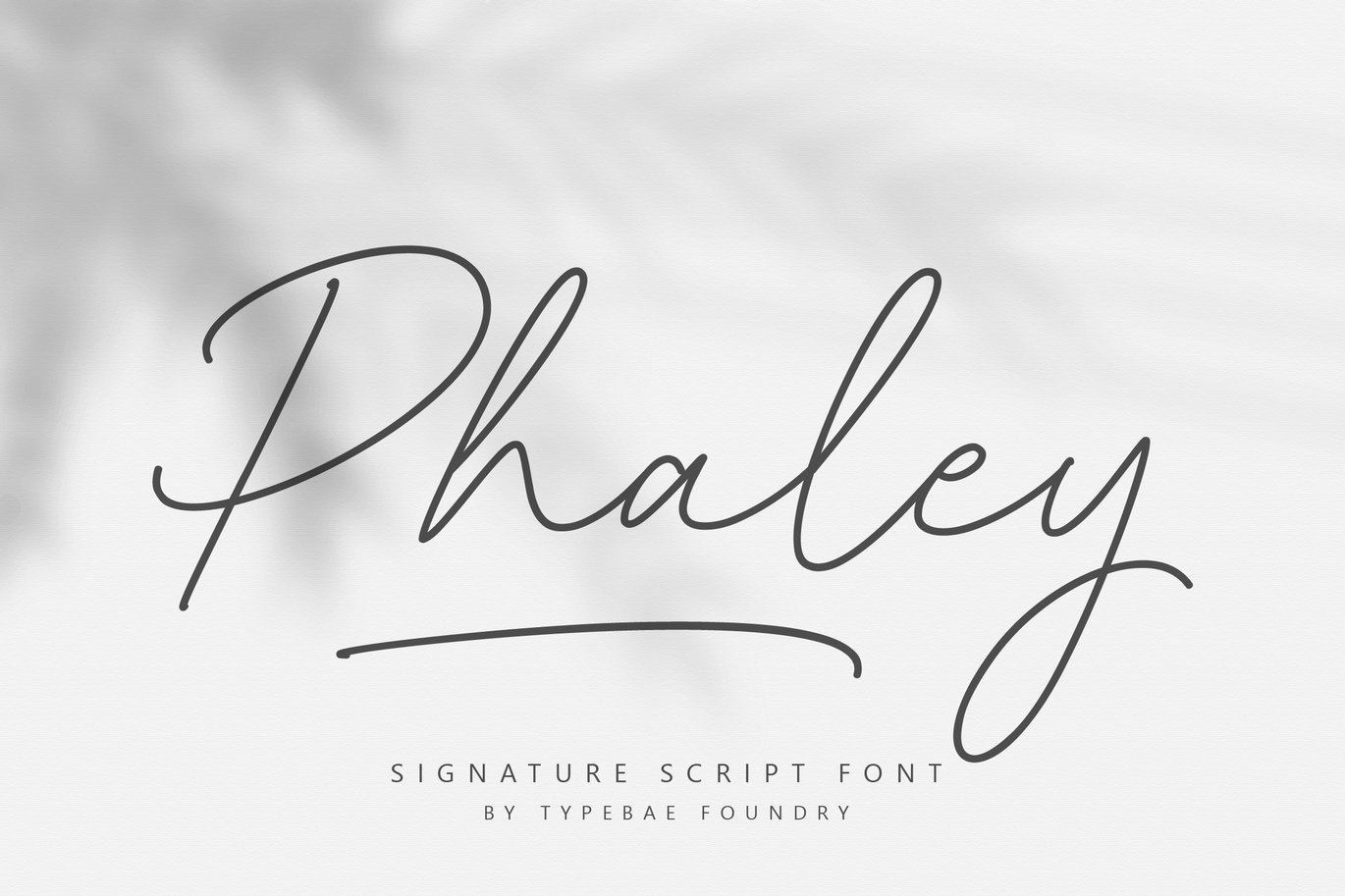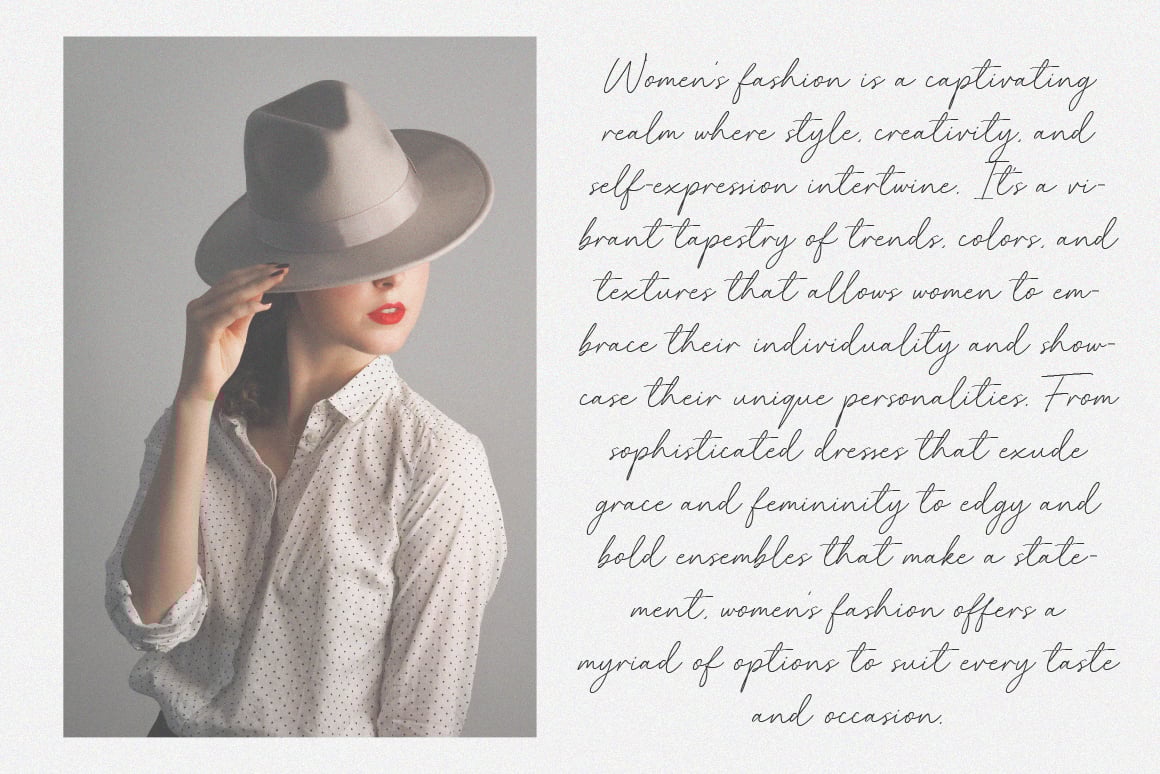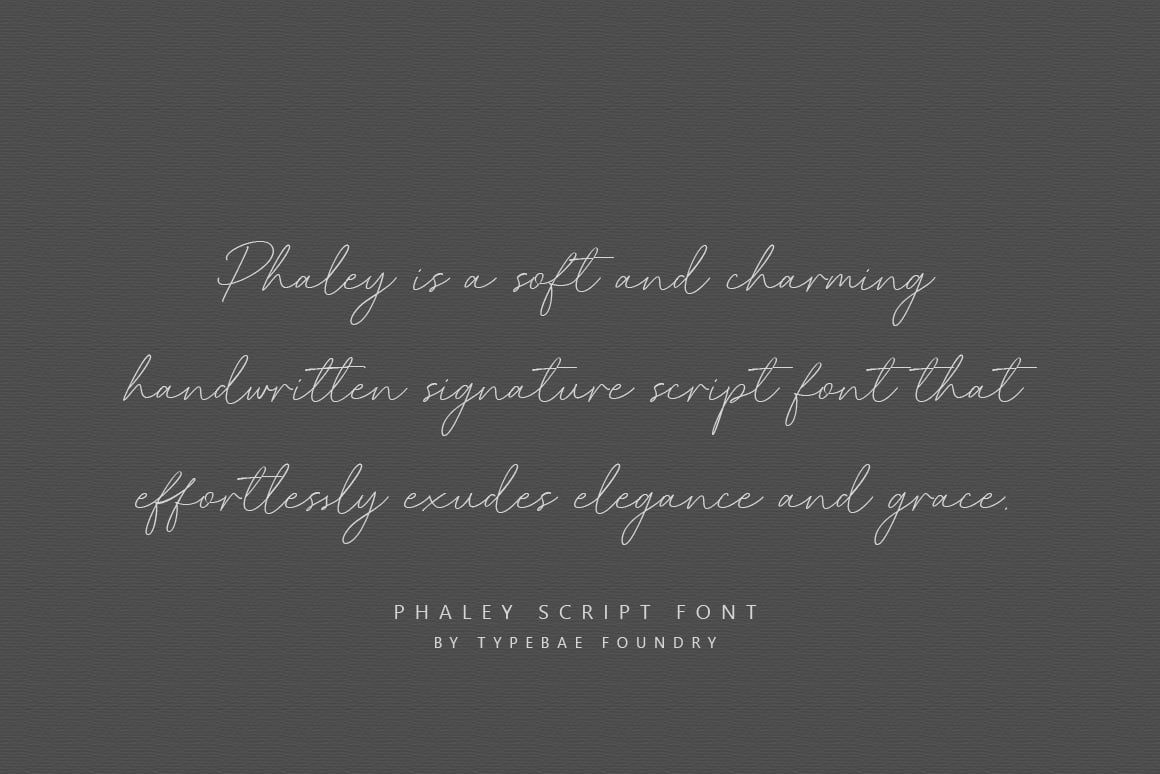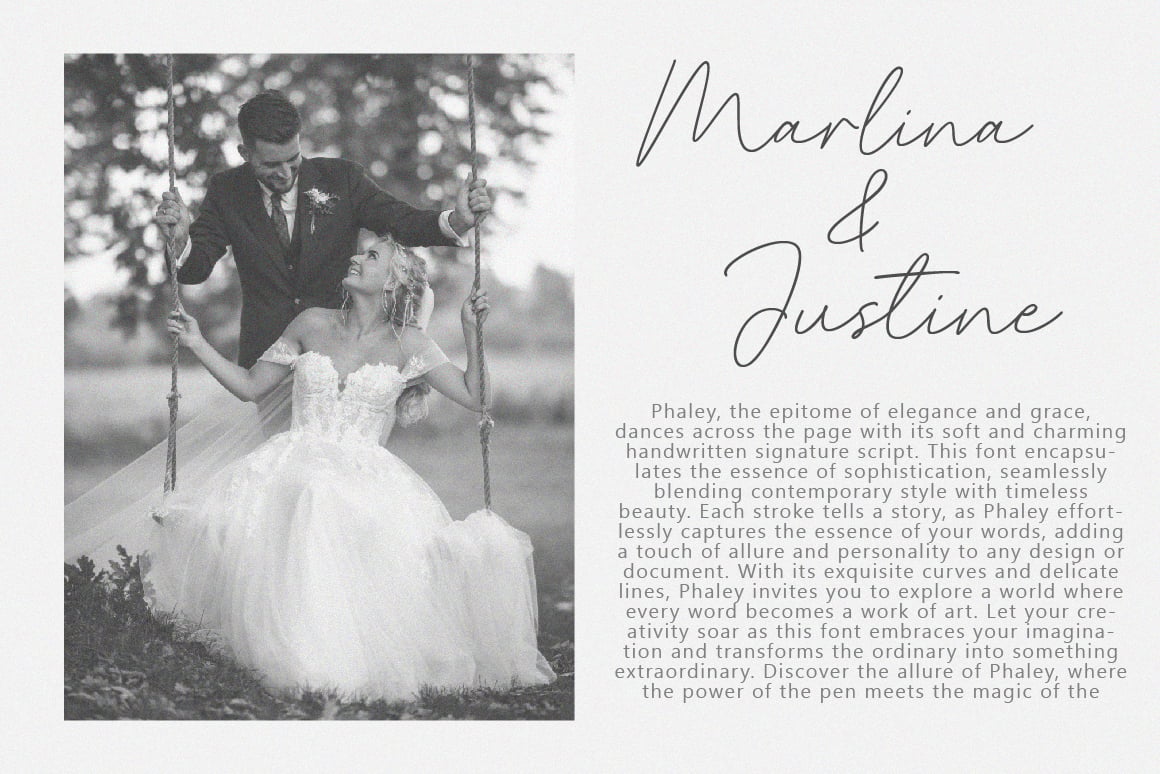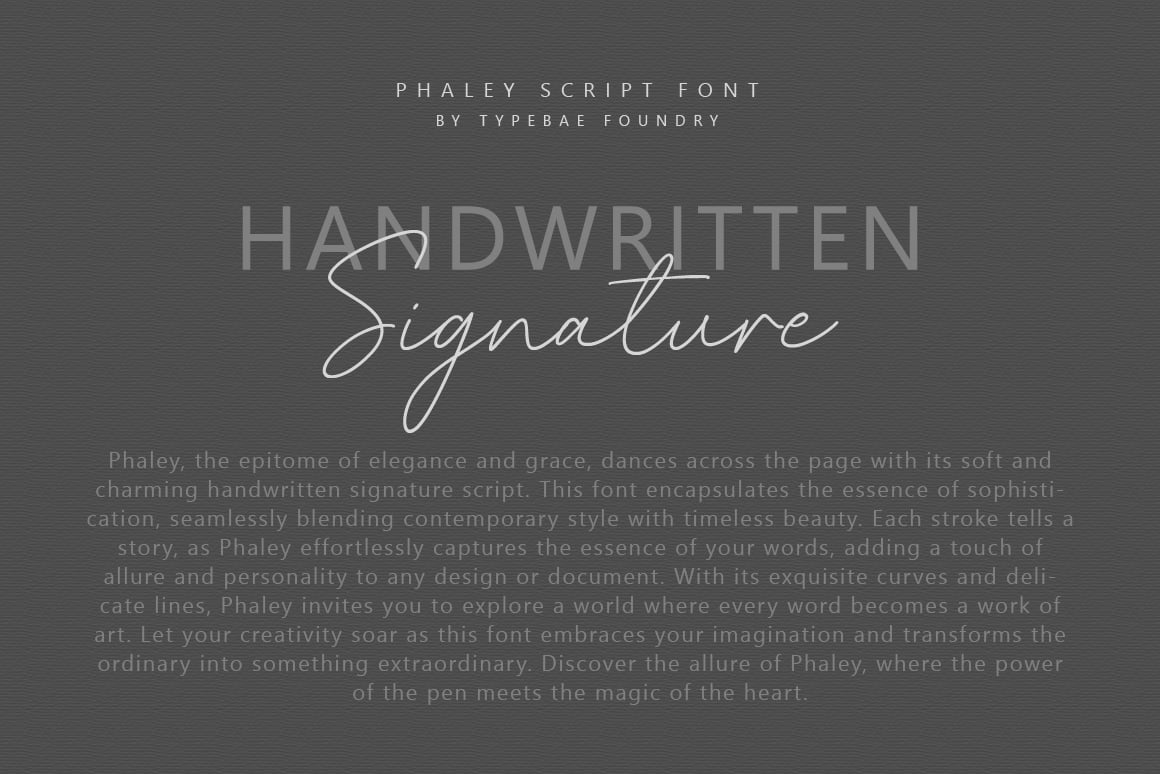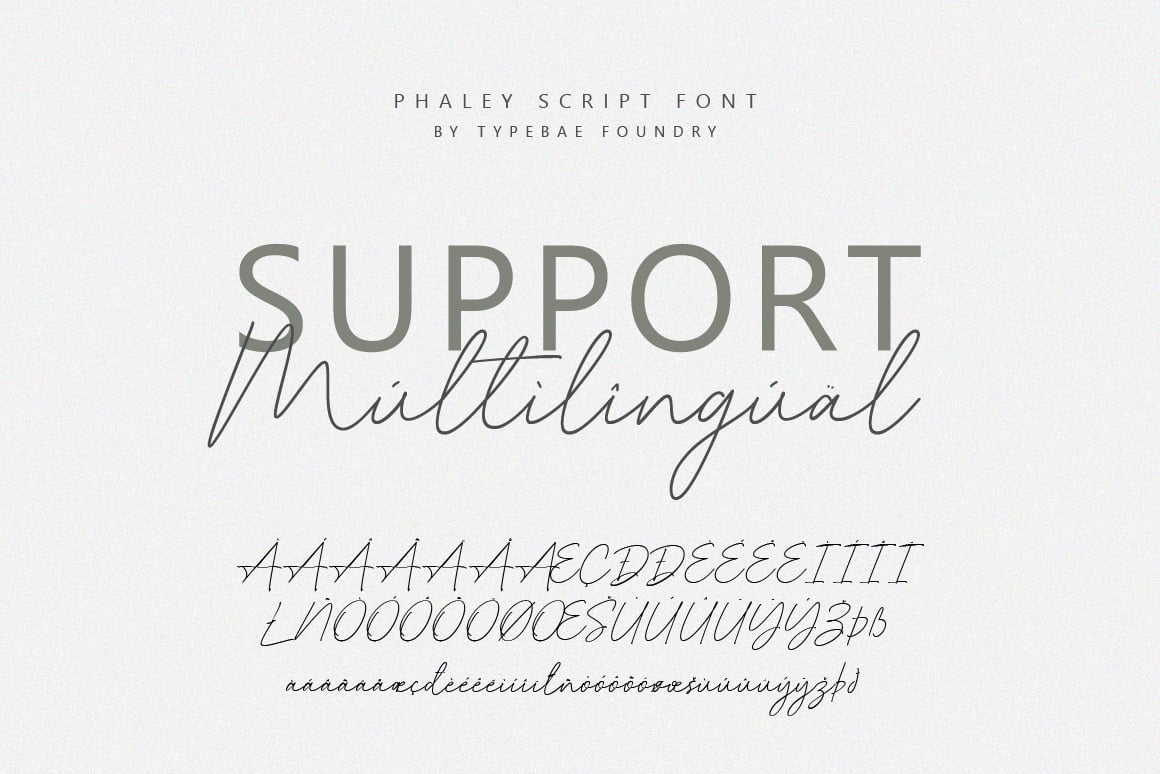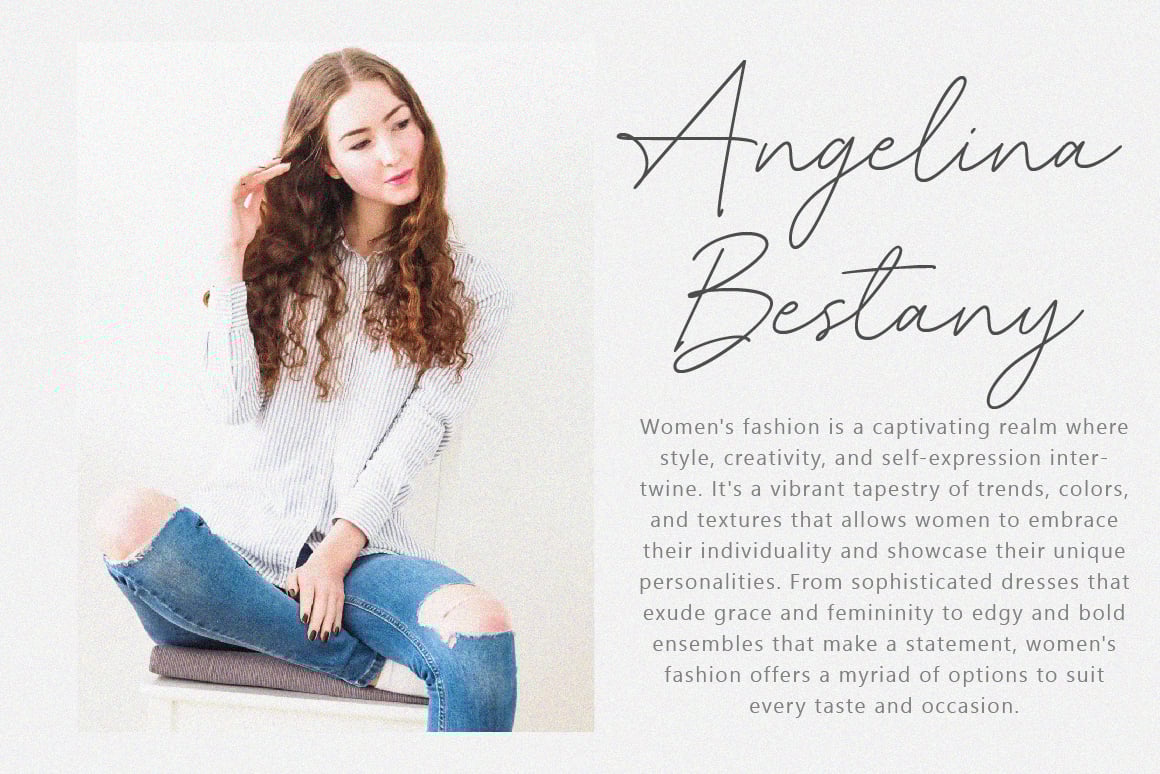
Phaley Script Font
Phaley is a soft and charming handwritten signature script font that effortlessly exudes elegance and grace. With its delicate curves and timeless beauty, it adds a touch of allure and personality to any design or document, transforming words into works of art.
Full alphabet and punctuation
Alternate, ligature & swashes feature
Multilingual Support: Afrikaans, Basque, Breton, Catalan, Danish, Dutch, English, Finnish, French, Gaelic (Irish, Scots), German, Icelandic, Indonesian, Irish, Italian, Norwegian, Portuguese, Saami (Southern), Spanish, Swahili, Swedish.